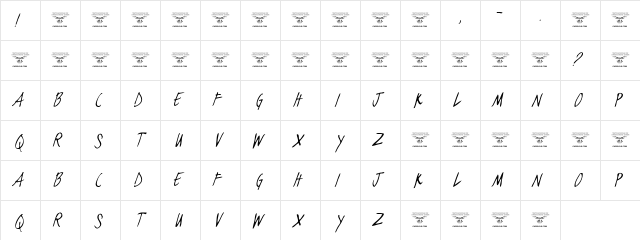
black jacket boys Thin Thin Italic Font Preview
Design Context for black jacket boys Thin Typeface
black jacket boys Thin is a composed and adaptable typeface that performs quietly and consistently across a wide range of design contexts. The dynamic lean of this cut emphasises speed and emphasis in any layout. Its slender proportions lend an understated elegance to any composition.
Pro Tip: Try black jacket boys Thin for annotation and caption copy alongside an upright companion — the contrast in angle creates a dynamic but ordered typographic system.